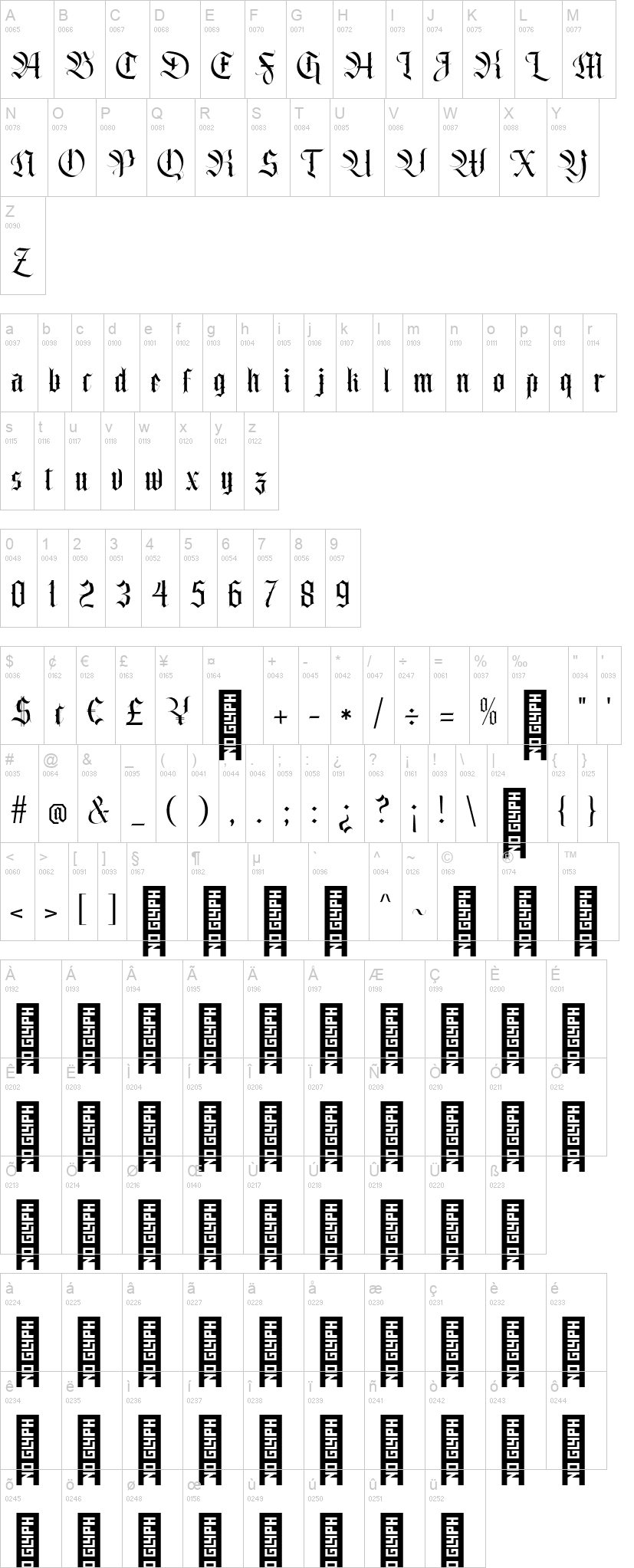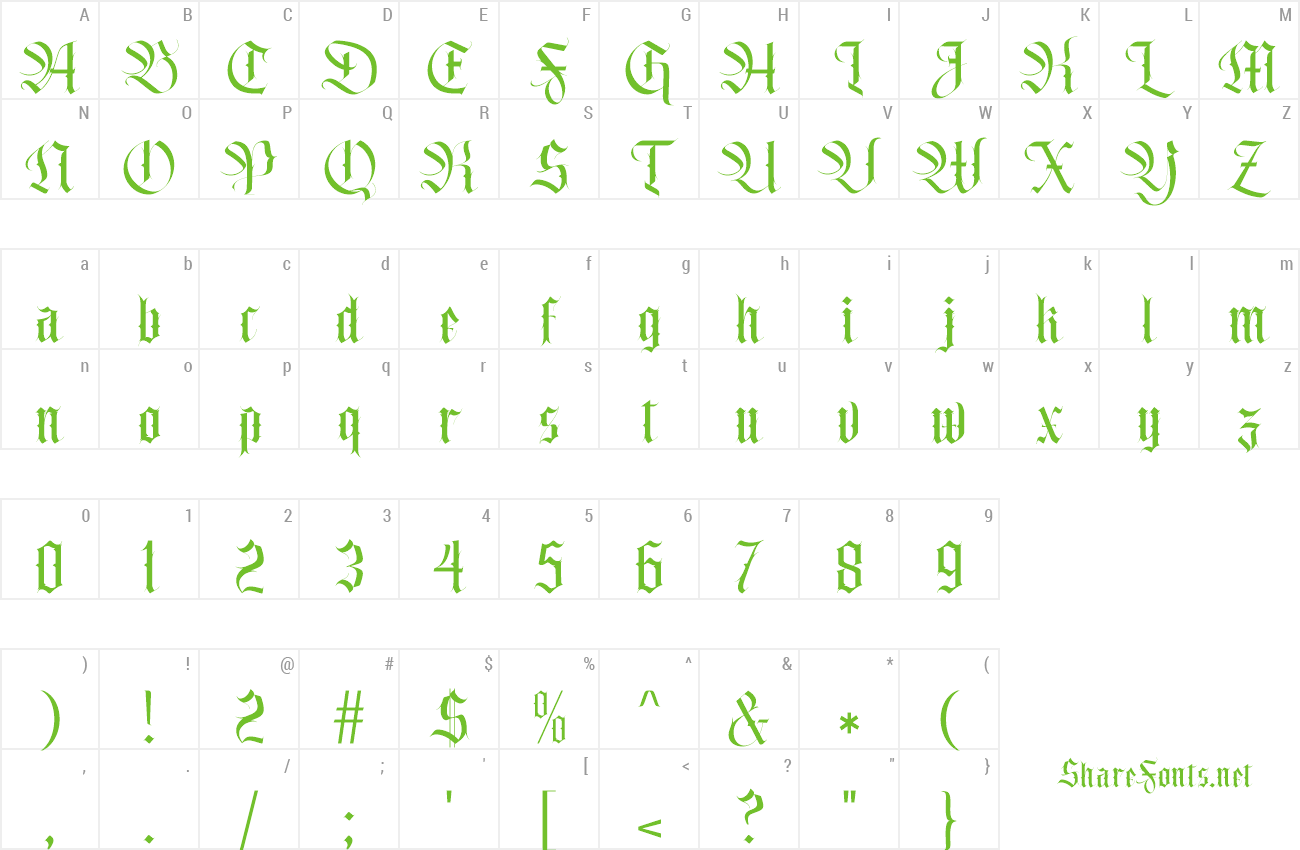
Belong Faith Font
Belong Faith Font - Web it’s a unique, vintage and elegant decorative typeface with victorian style.
Web it’s a unique, vintage and elegant decorative typeface with victorian style.